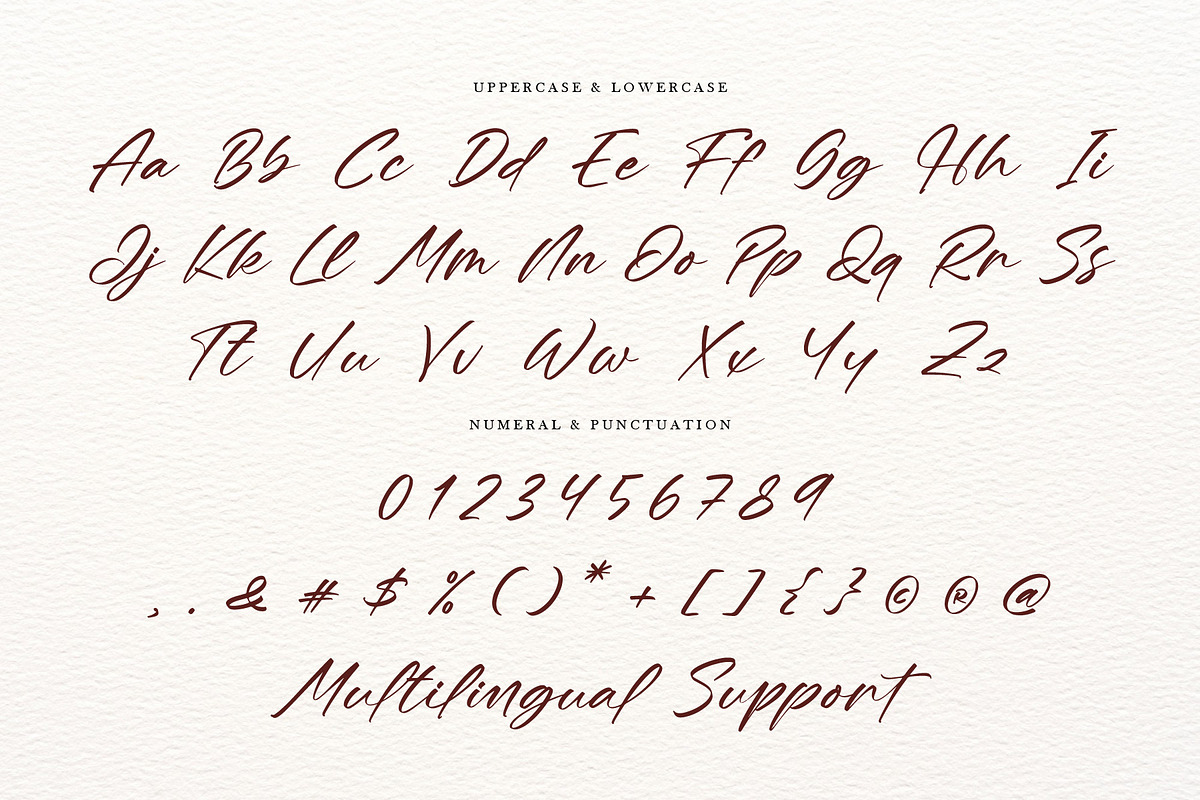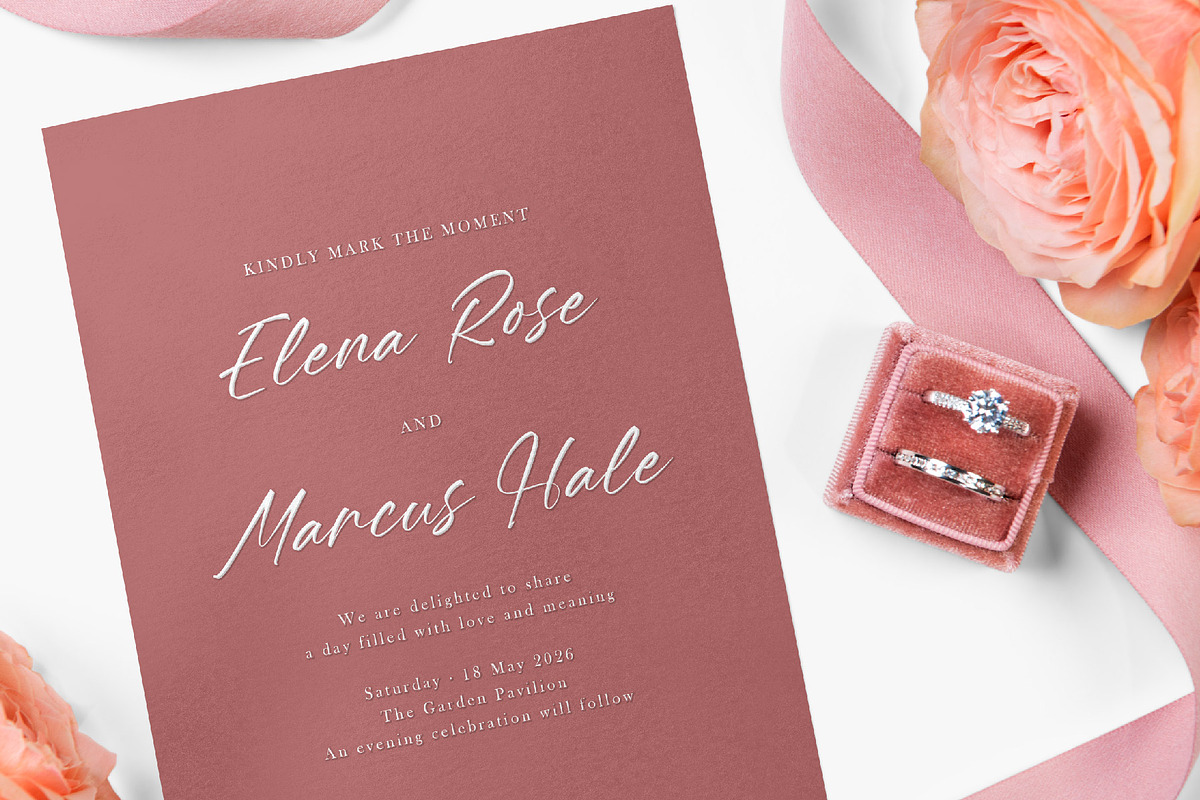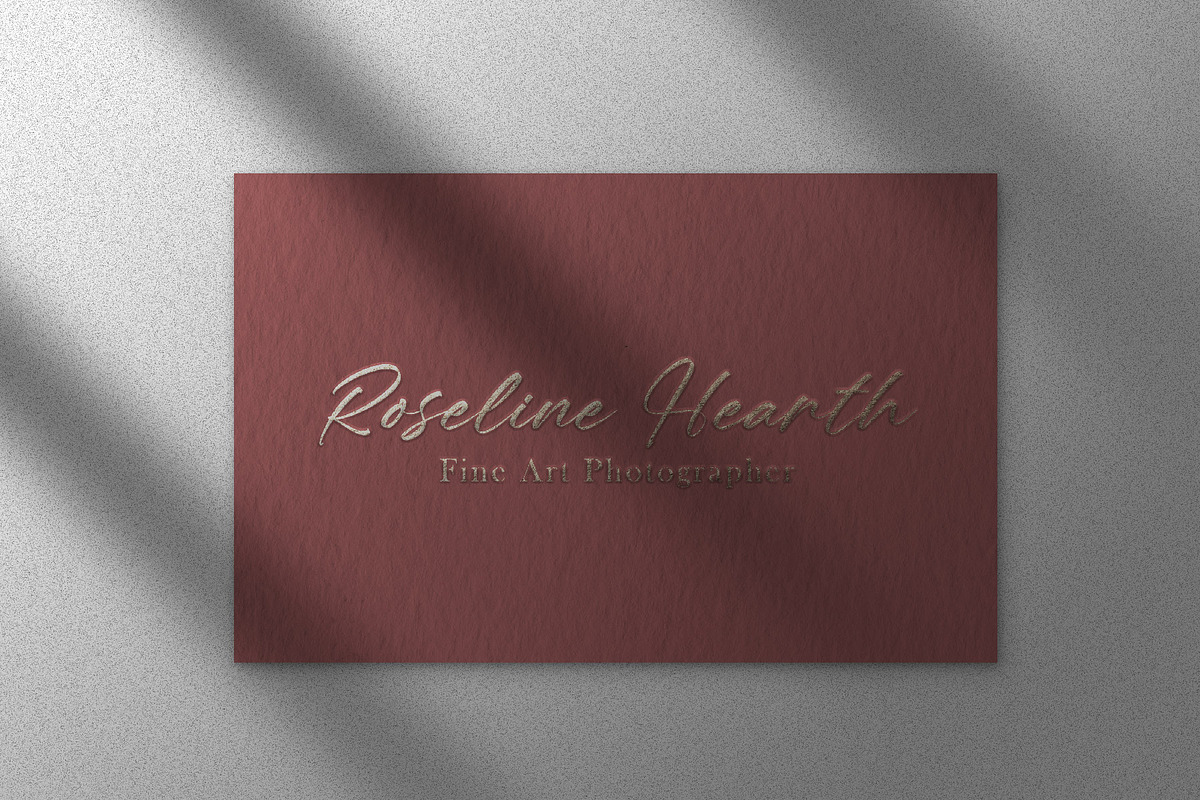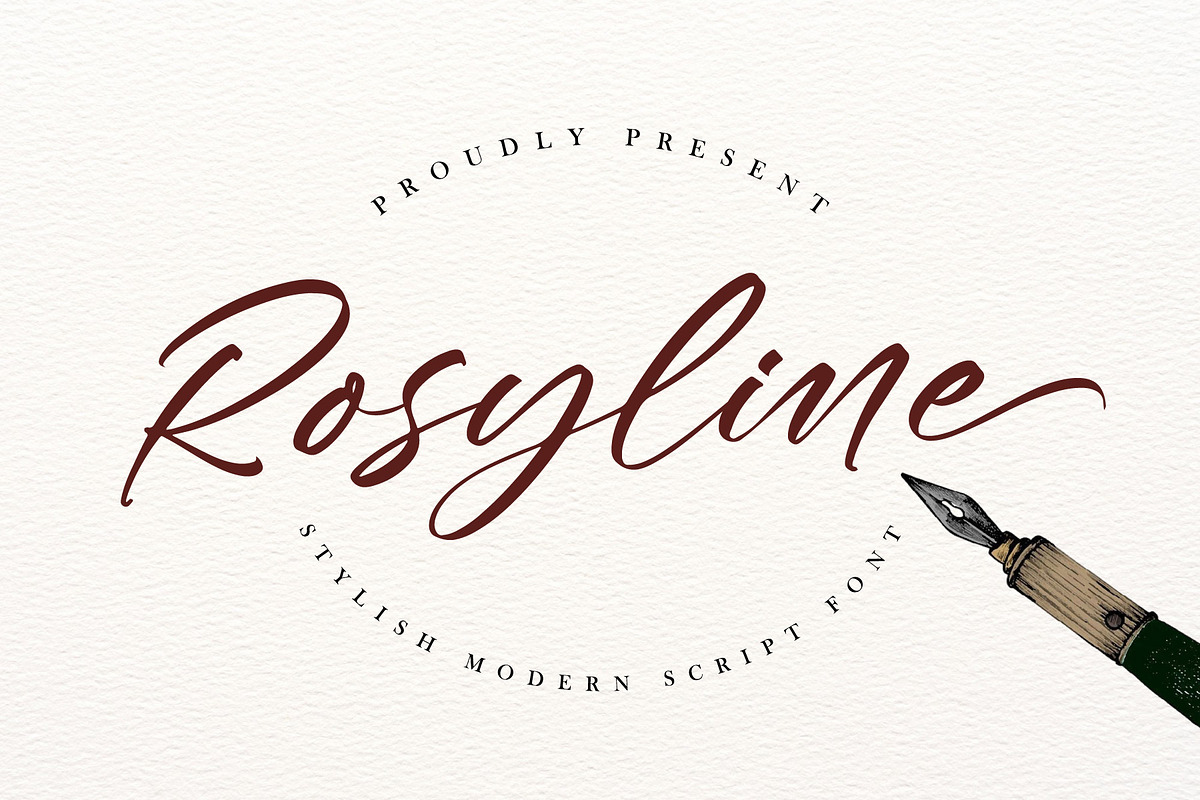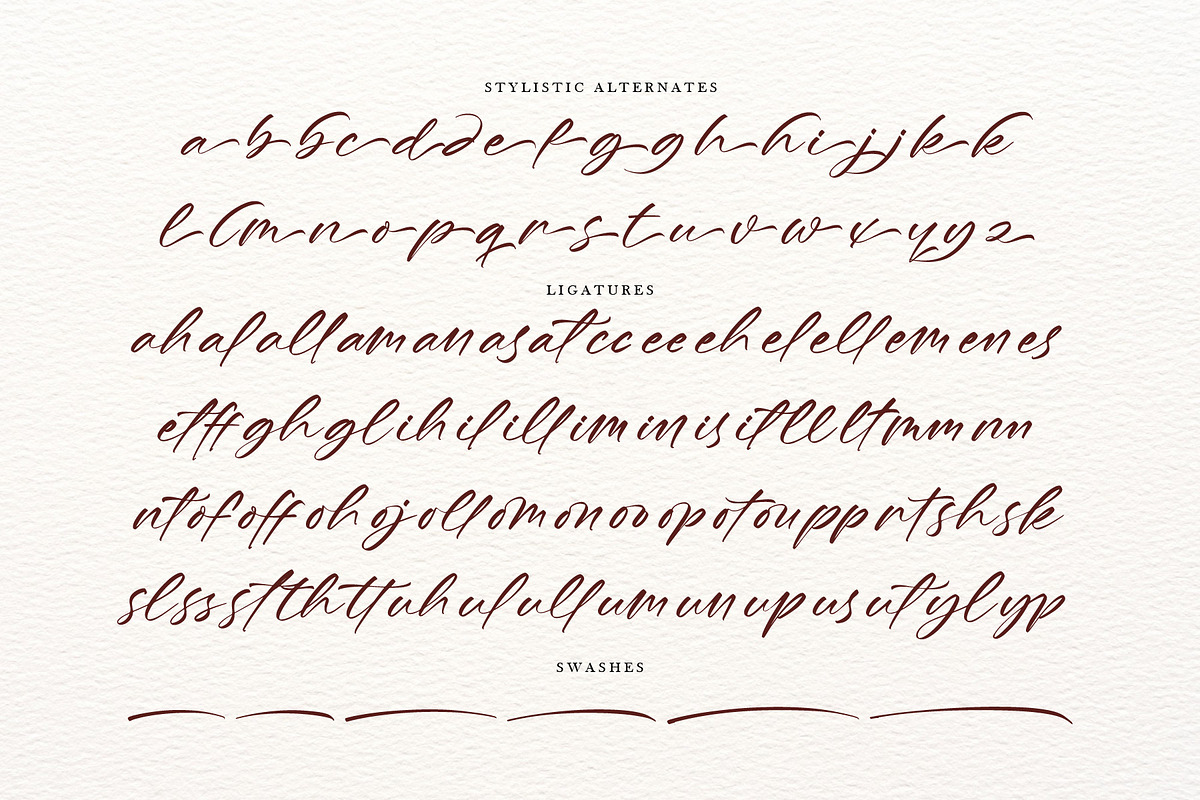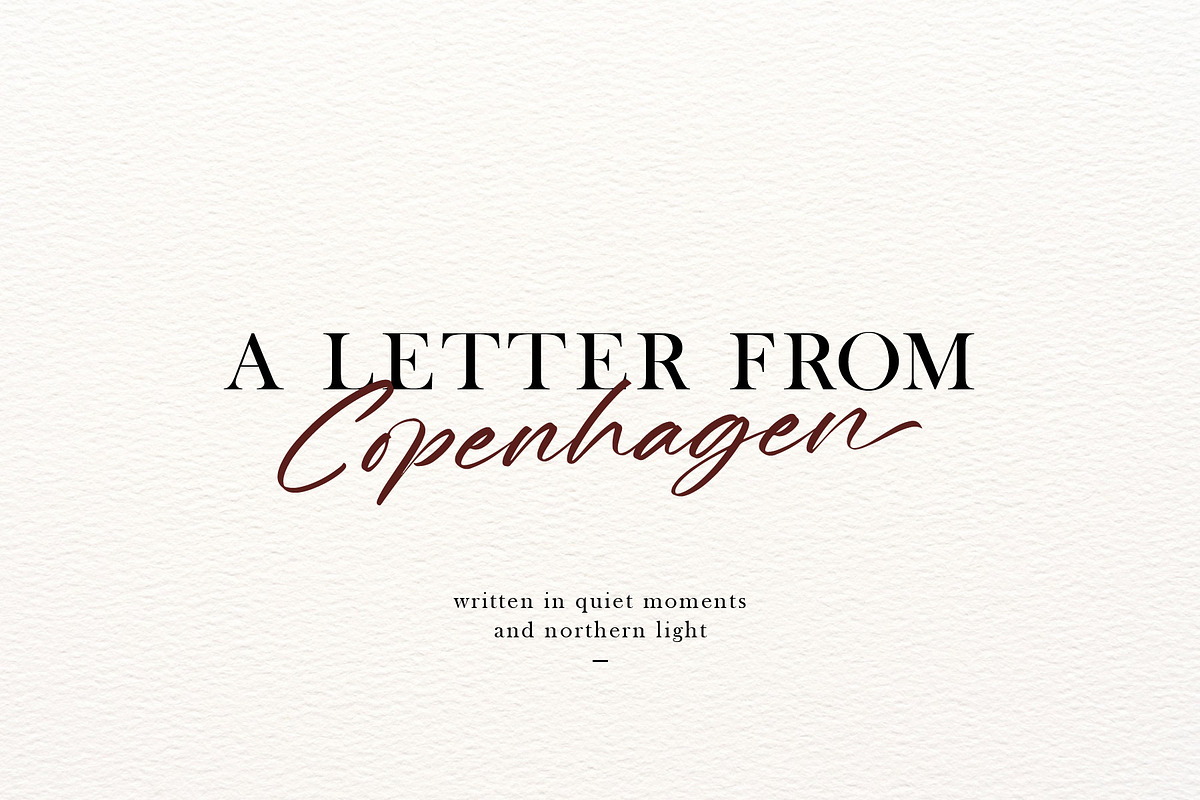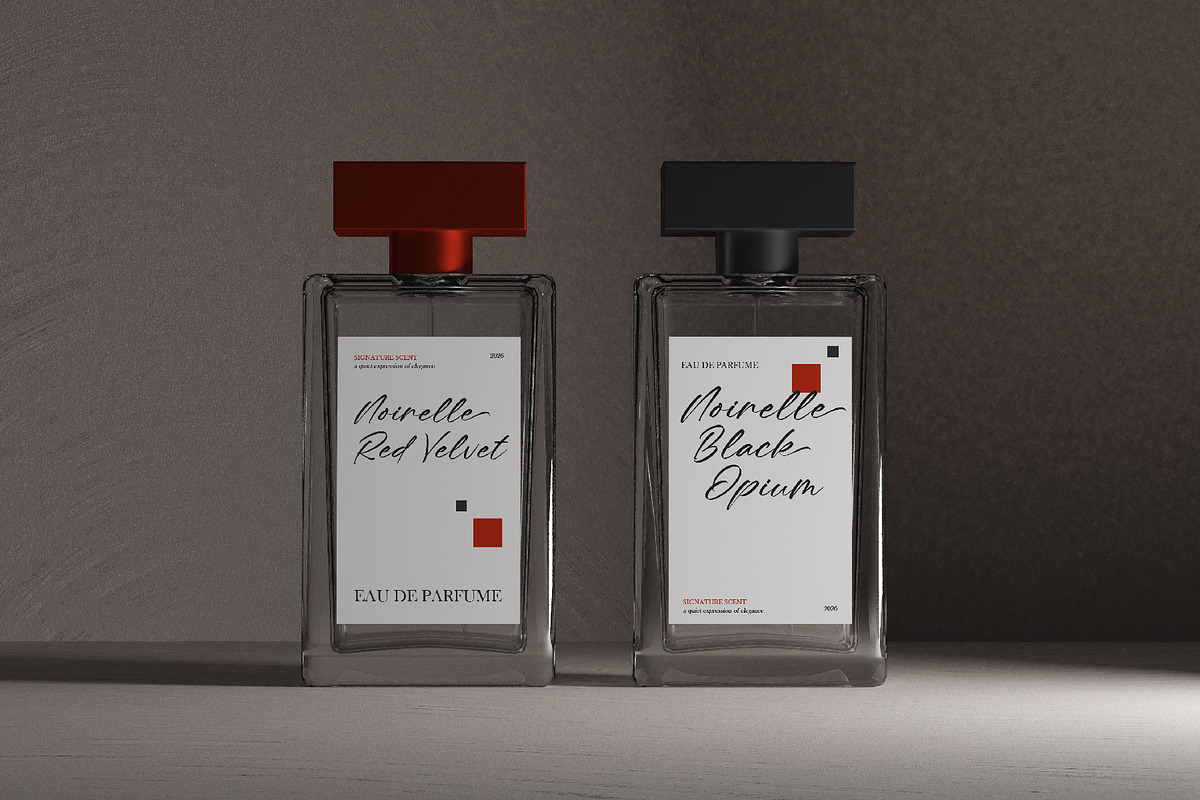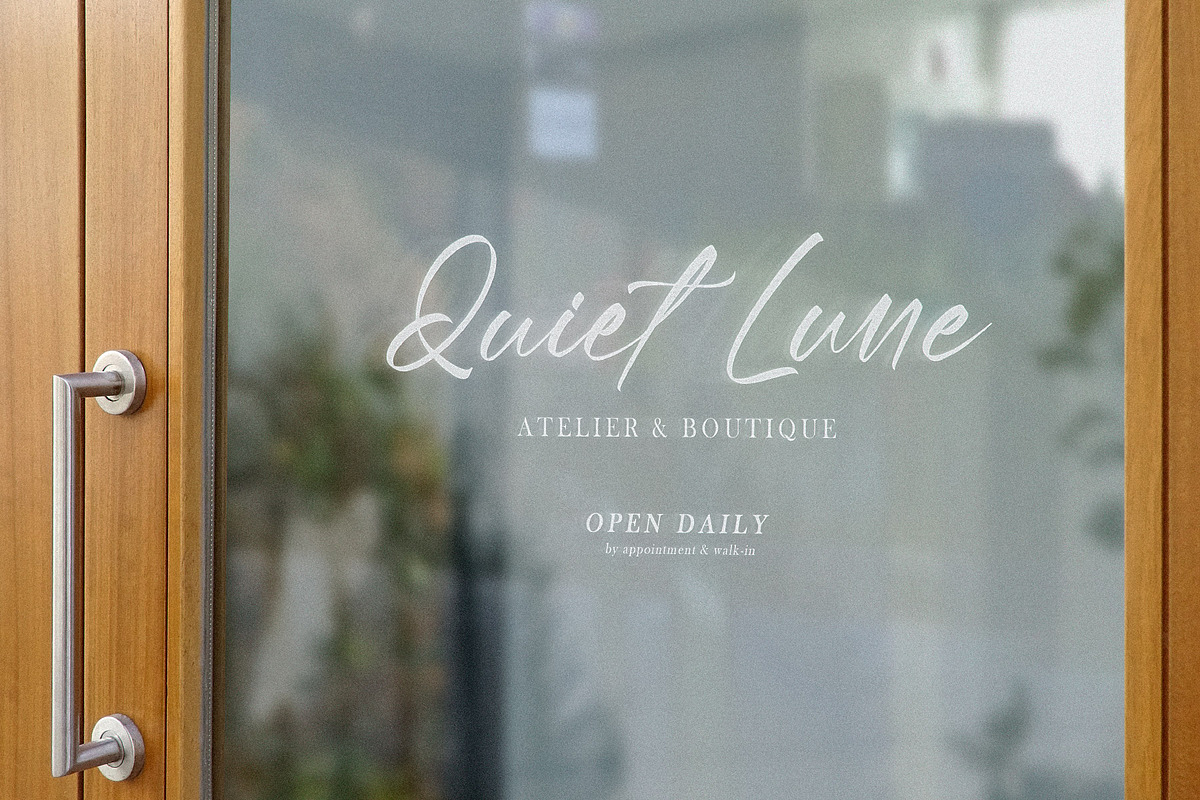
Rosyline - Stylish Script Font
Rosyline is a stylish modern script font designed to create a clean, feminine, and contemporary look. It works well for modern logos and personal branding, and is also suitable for wedding invitations, beauty and lifestyle designs, social media graphics, packaging, stationery, and short headlines where a soft and stylish touch is needed.
- Opentype Features (Alternates & Ligatures)